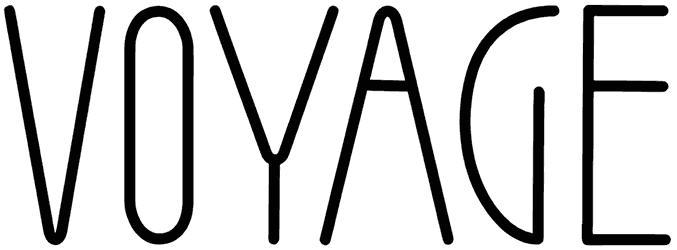
Voyage Font
Let’s meet a minimal and delicate fashion font named Voyage. With unique and modern sans-serif letters, this item can be properly matched with various subjects. Just set Voyage on your following projects, from business cards to magazines, and be sure, even without lowercase letters, it will be enough to cause a memorable vibe.